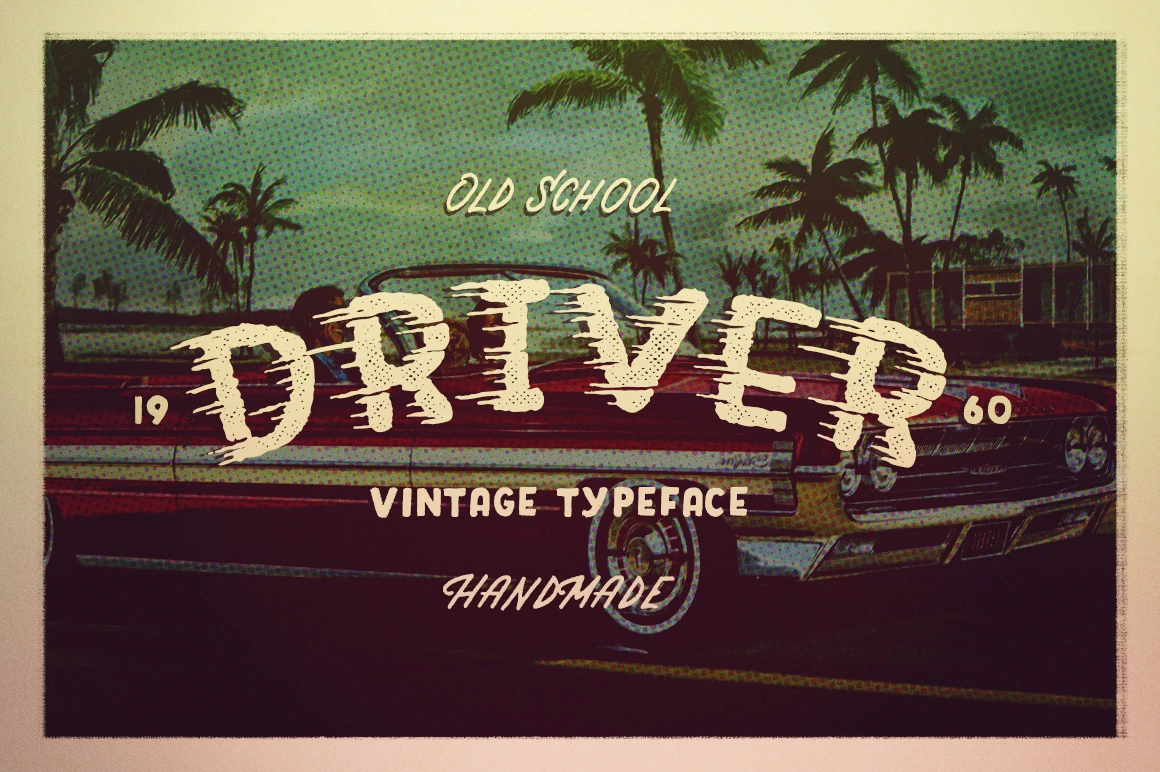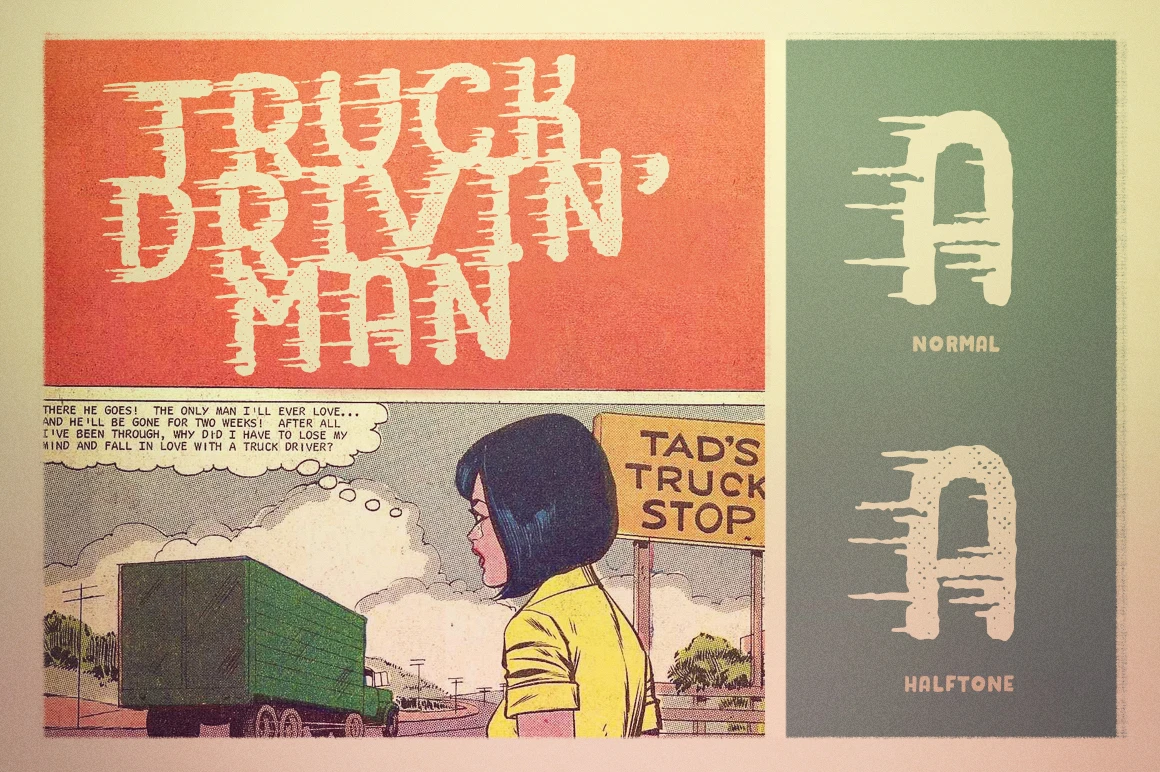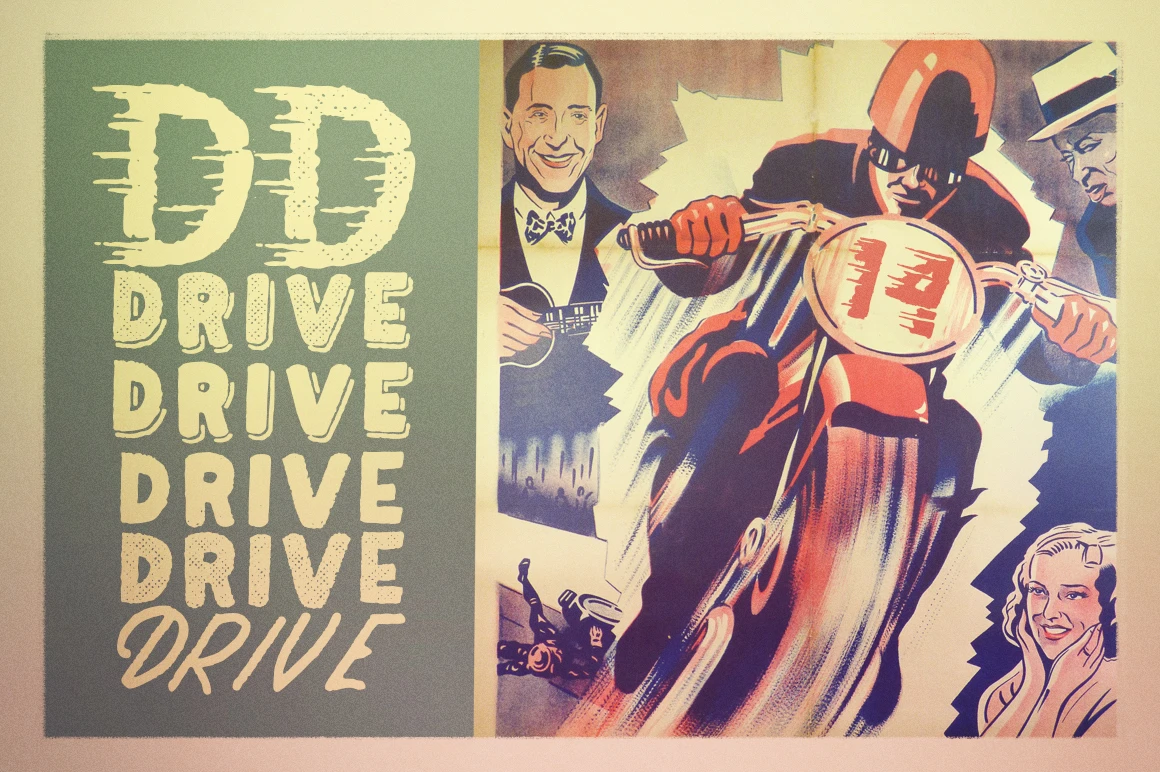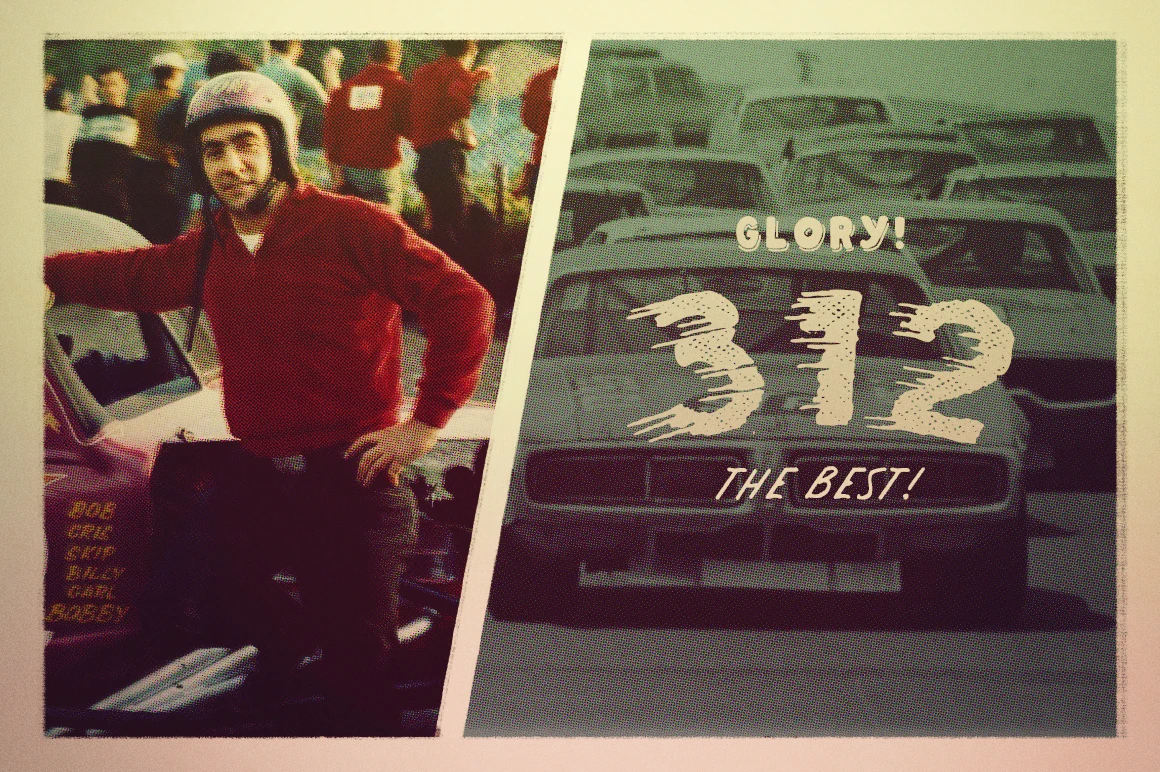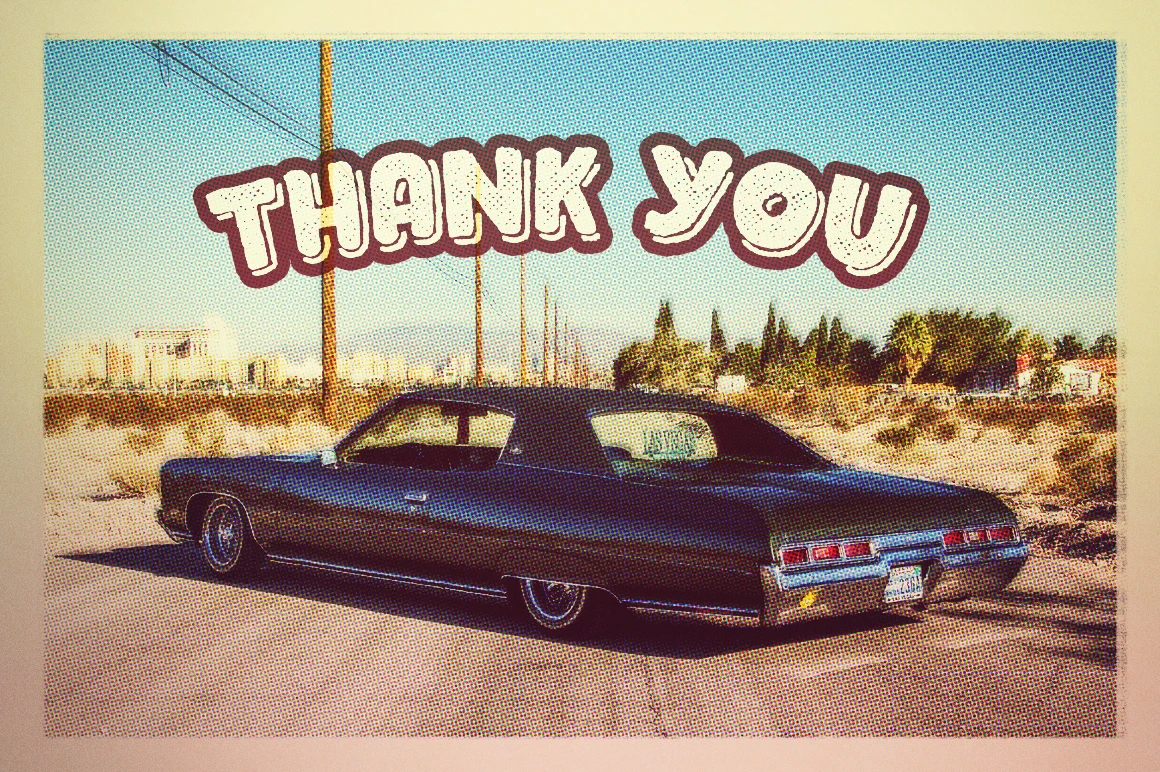
Driver is a handmade vintage typeface created to deliver a bold, hand-drawn look. Inspired by retro racing posters and action comics from the 1960s and 70s, it brings high-energy style with a nostalgic edge. Perfect for projects needing an authentic, rough-cut feel, it’s ideal for posters, t-shirts, album covers, packaging, and bold headlines. Designed to capture motion and excitement, Driver adds punch and personality to any vintage-themed design.